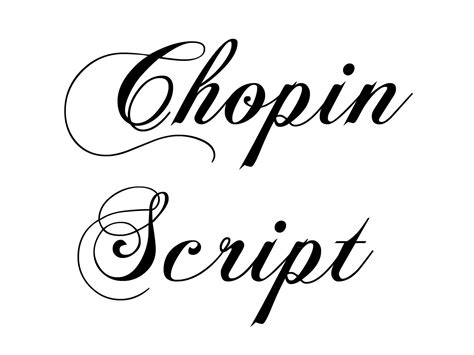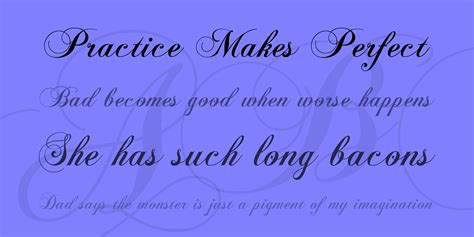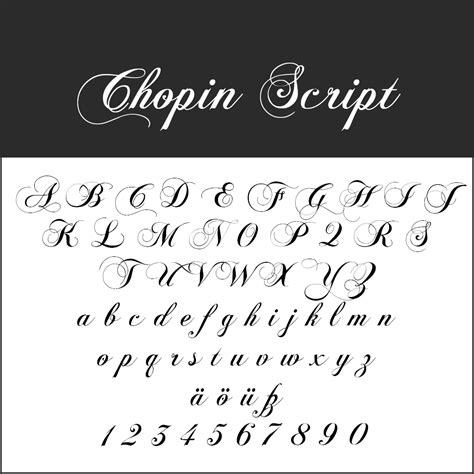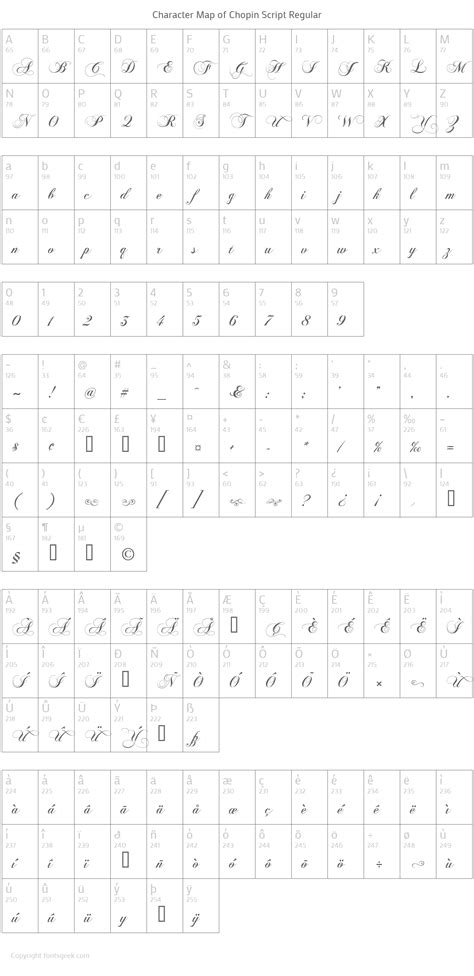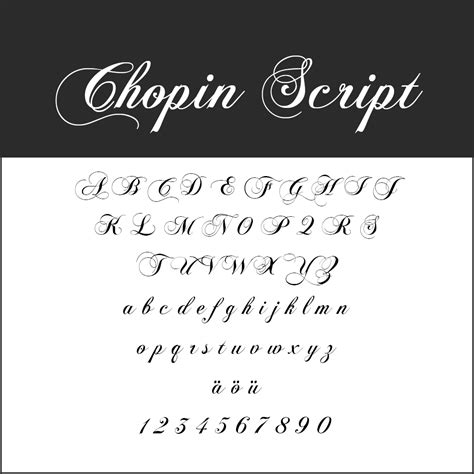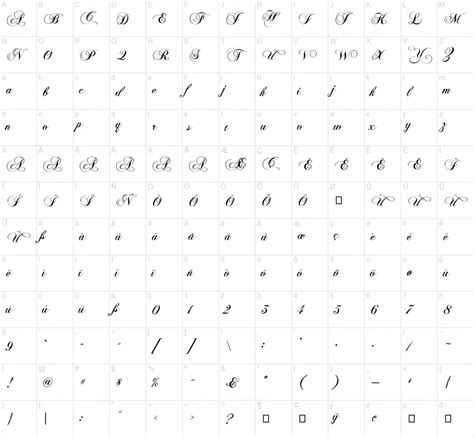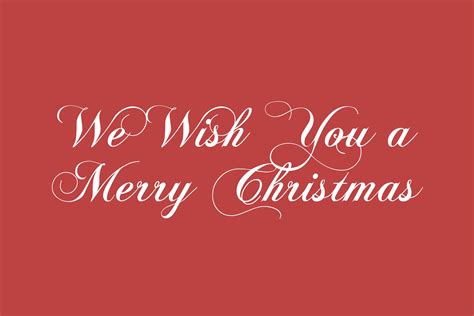
In the vast world of typography, certain fonts stand out for their unique characteristics and historical significance. One such font is the Chopin Script Font, a beautiful and elegant script font that has captivated designers and enthusiasts alike. This font is named after the renowned Polish composer Frédéric Chopin, known for his romantic and emotive piano compositions. The Chopin Script Font embodies the same grace and fluidity found in Chopin's music, making it a popular choice for various design projects.
Understanding the Chopin Script Font
The Chopin Script Font is a calligraphic font that mimics the flowing, handwritten style of traditional script. It is characterized by its elegant curves, delicate strokes, and a sense of fluidity that makes it ideal for invitations, logos, and other design elements that require a touch of sophistication. The font's design is inspired by the romantic era, reflecting the emotional depth and beauty of Chopin's compositions.
Historical Context and Inspiration
The Chopin Script Font draws its inspiration from the romantic period, a time when music and art were deeply intertwined. Frédéric Chopin, born in 1810, was a pivotal figure in this era, known for his emotive and expressive piano pieces. His music, characterized by its lyrical melodies and intricate harmonies, has left an indelible mark on the world of classical music. The Chopin Script Font captures the essence of this romantic spirit, making it a fitting tribute to the composer's legacy.
Characteristics of the Chopin Script Font
The Chopin Script Font is distinguished by several key characteristics that set it apart from other script fonts:
- Elegant Curves: The font features smooth, flowing curves that give it a natural, handwritten appearance.
- Delicate Strokes: The thin, delicate strokes add a sense of refinement and elegance to the font.
- Fluidity: The letters flow seamlessly into one another, creating a cohesive and harmonious look.
- Romantic Aesthetic: The font's design evokes a sense of romance and emotion, making it perfect for projects that require a touch of sentimentality.
Applications of the Chopin Script Font
The Chopin Script Font is incredibly versatile and can be used in a variety of design projects. Some of the most common applications include:
- Invitations: The font's elegant and romantic style makes it ideal for wedding invitations, anniversary celebrations, and other special occasions.
- Logos: Businesses looking to convey a sense of sophistication and elegance can use the Chopin Script Font for their logos.
- Branding: The font can be used in branding materials to create a cohesive and refined look.
- Stationery: Personal stationery, such as letterheads and business cards, can benefit from the font's elegant and timeless design.
- Packaging: Luxury brands often use script fonts to enhance the perceived value of their products, making the Chopin Script Font a great choice for packaging design.
Design Tips for Using the Chopin Script Font
To make the most of the Chopin Script Font, consider the following design tips:
- Pairing with Other Fonts: The Chopin Script Font pairs well with serif and sans-serif fonts. For a classic look, pair it with a traditional serif font like Times New Roman. For a more modern aesthetic, pair it with a clean sans-serif font like Helvetica.
- Color Schemes: Choose color schemes that complement the font's romantic and elegant style. Soft pastels, deep jewel tones, and metallic accents can all enhance the font's appeal.
- Spacing and Alignment: Ensure that there is adequate spacing between letters and lines to maintain readability. Center alignment often works best for the Chopin Script Font, as it creates a balanced and harmonious look.
- Size and Weight: Use the font in larger sizes for headings and titles, and in smaller sizes for body text. Avoid using the font in very small sizes, as the delicate strokes can become difficult to read.
Comparing Chopin Script Font with Other Script Fonts
To better understand the unique qualities of the Chopin Script Font, it can be helpful to compare it with other popular script fonts. Below is a table highlighting the key differences between the Chopin Script Font and a few other well-known script fonts:
| Font Name | Characteristics | Best Used For |
|---|---|---|
| Chopin Script Font | Elegant curves, delicate strokes, fluidity, romantic aesthetic | Invitations, logos, branding, stationery, packaging |